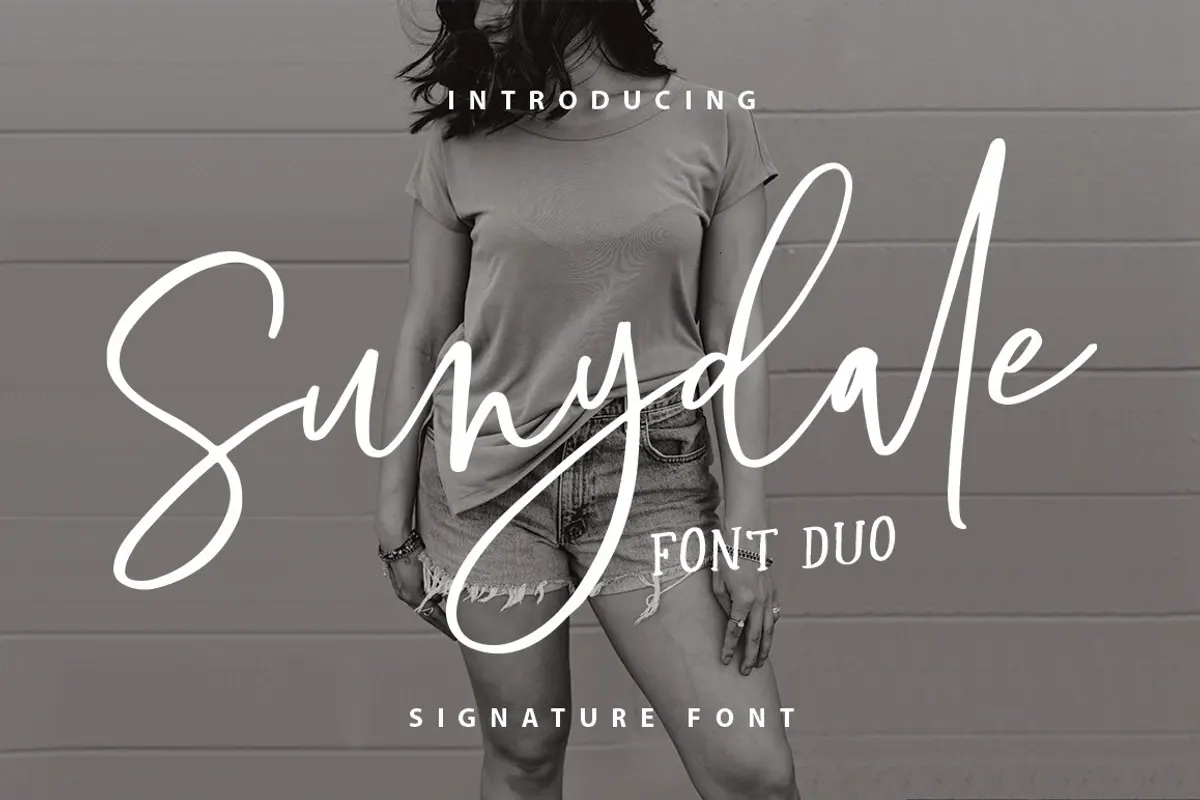
Sunydale Script! Font Free Download is a lively and elegant handwritten typeface that adds a touch of charm and sophistication to any design. With its smooth curves and natural flow, this script font is ideal for invitations, branding, social media graphics, and personal projects that need a stylish and organic feel.
Its versatile character set makes it easy to use in both formal and casual contexts, while maintaining a consistent, polished appearance. Whether you're crafting a romantic wedding suite or designing a boutique logo, Sunydale Script! brings warmth and personality to your work.